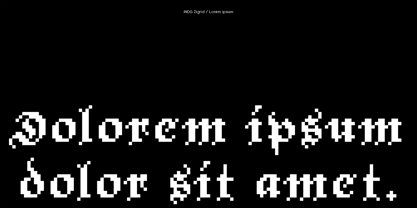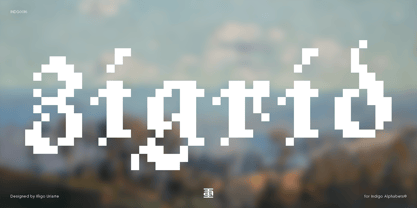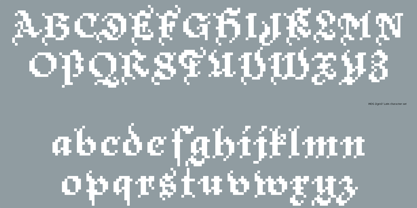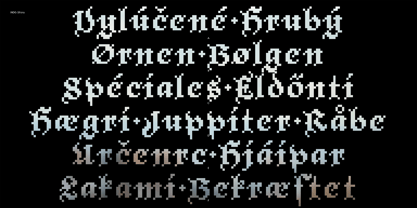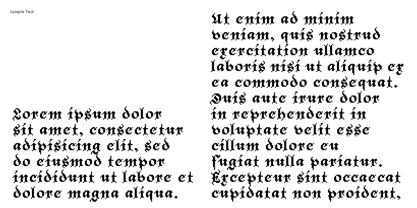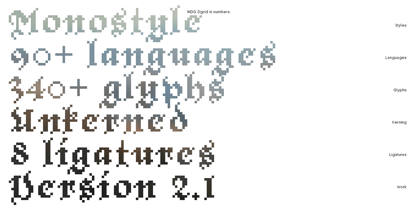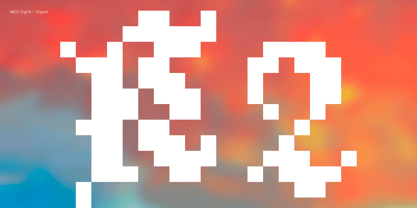
INDG Zigrid
by Iñigo Uriarte
INDG Zigrid is a ucronic typeface: it represents a typographic paradox, the meeting point of two moments of the past.
Its high-contrast, angular shapes retain the character of gothic script while adapting to screen-based design. Suitable for headings, logos, interfaces, and display use, it offers strong visual impact in both small and large sizes, maintaining clarity and consistency across digital applications.
OpenType features:
liga: ff, fi, fl, ffi, ffl, fb, fh, fk
ss01: b, h, k